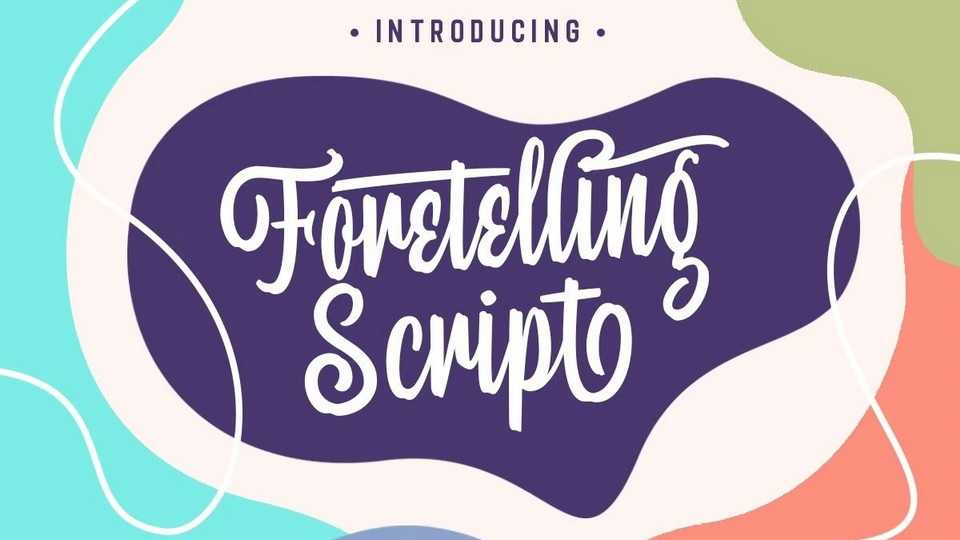
Download Foretelling Script font, a fun, playful and casual typeface made by natural handwriting. Foretelling Script maintains its classy calligraphic influences while feeling contemporary and fresh.